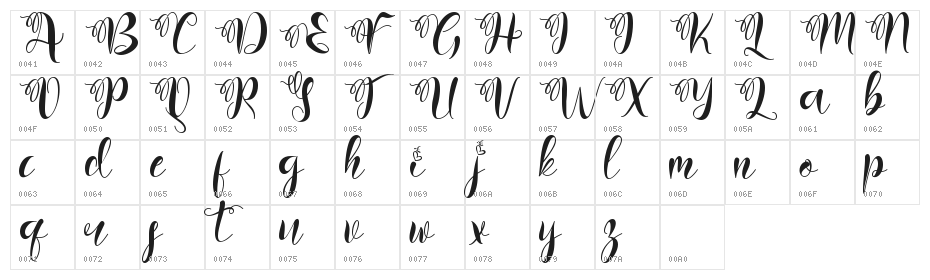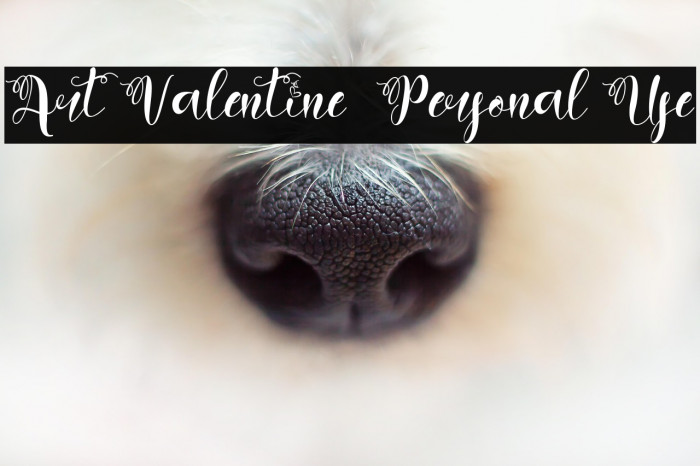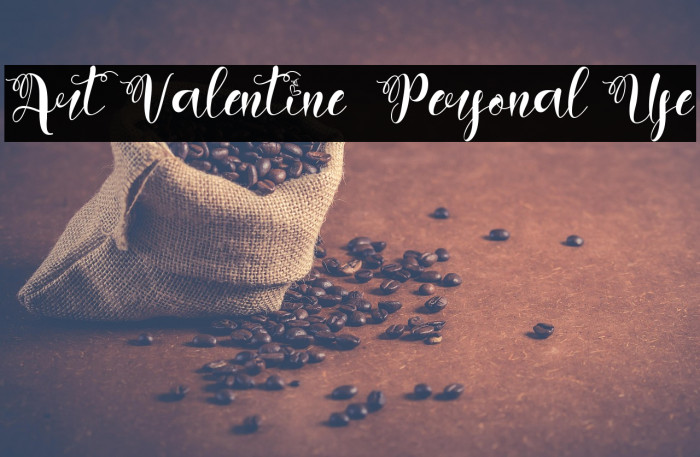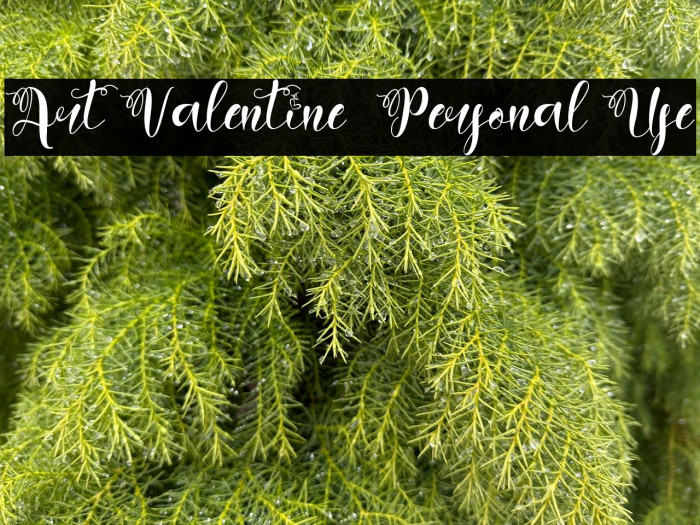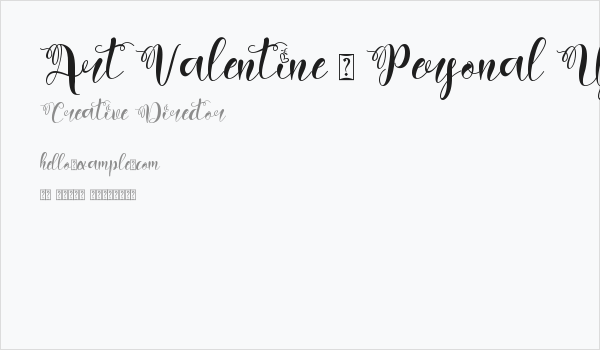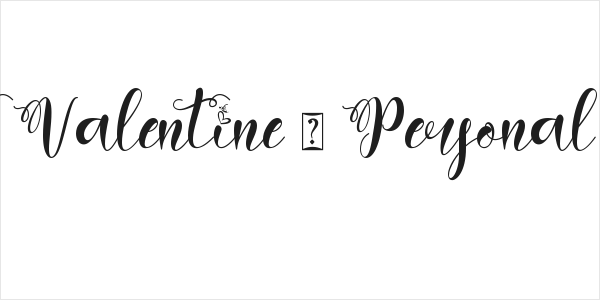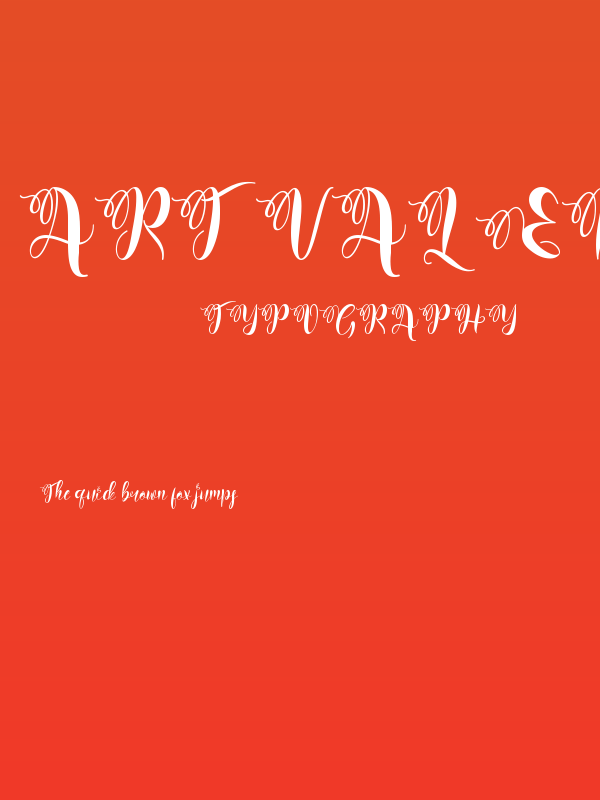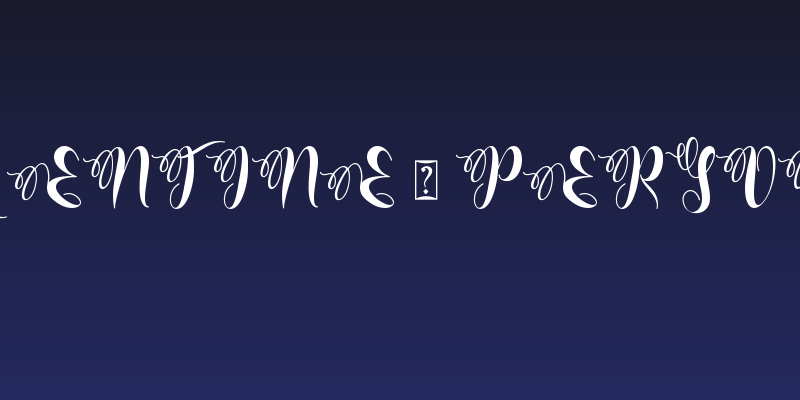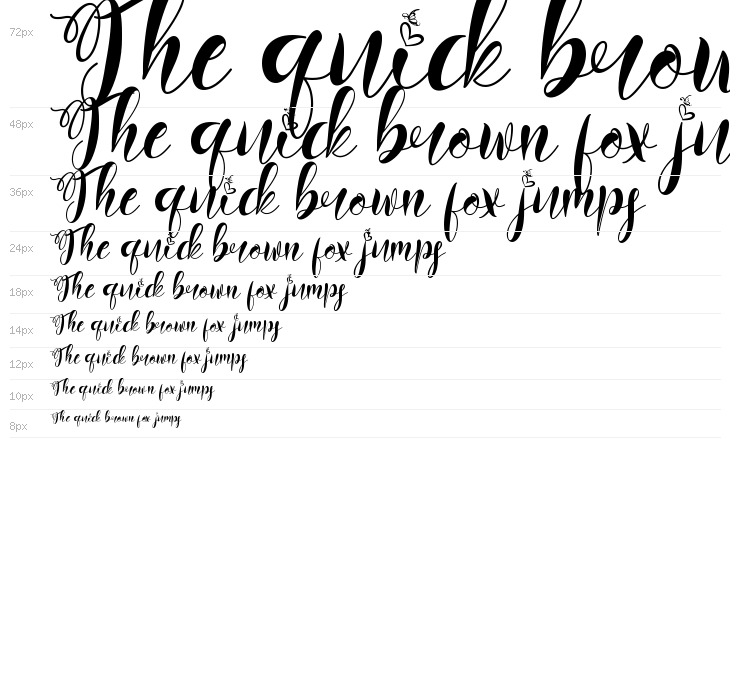
Art Valentine - Personal Use Font
Art Valentine - Personal Use Description
This font features an elegant and flowing script style, characterized by its decorative swirls and loops that add a romantic and whimsical touch. The uppercase letters are ornate, with intricate flourishes that extend from the main strokes, creating a sense of movement and grace. The lowercase letters maintain a consistent style, with smooth curves and a slightly exaggerated slant, enhancing the overall fluidity of the design. The font's bold weight gives it a strong presence, making it suitable for eye-catching headlines or artistic projects. The contrast between thick and thin strokes is medium, providing a balanced and harmonious appearance. This font is perfect for projects that require a touch of elegance and sophistication, such as wedding invitations, greeting cards, or branding for luxury products.
| Use Case | Headlines, Artistic projects, Invitations |
| Proposed Projects | Wedding invitations, greeting cards, luxury branding, artistic headlines. |